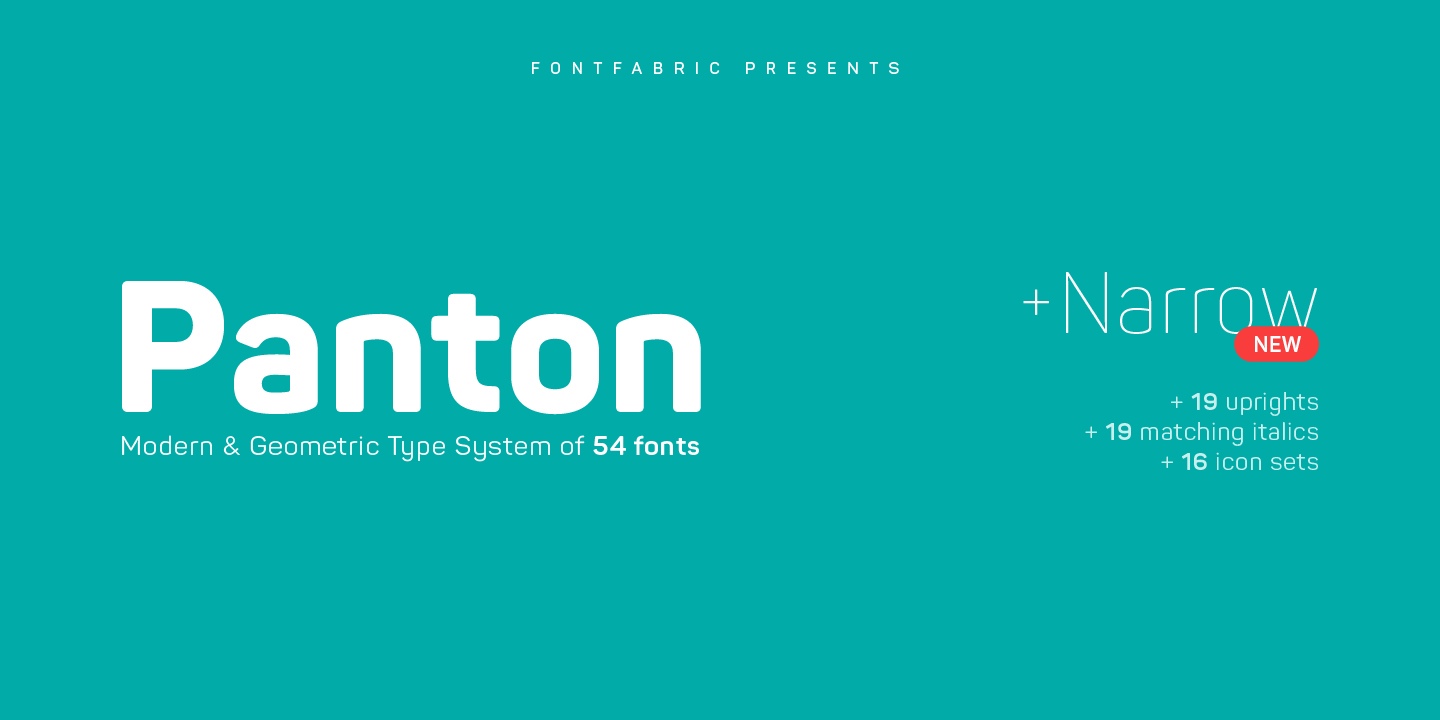
Panton Font
Panton Font is perfect for modern tech startups, contemporary architectural signage, innovative product packaging, sleek corporate identities, cutting-edge web design, minimalist brand campaigns, professional presentation materials, clean mobile interfaces, progressive marketing graphics, and sophisticated digital platforms.
What makes Panton Font so exciting is its exceptional ability to embody geometric precision and contemporary sophistication through letterforms that seem engineered for perfect clarity and modern professional excellence. This versatile typeface captures the essence of contemporary design and systematic thinking with characters that radiate both technical precision and accessible professionalism. The font's geometric design elements perfectly balance mathematical accuracy with human readability, creating an indispensable tool that communicates modern competence, systematic reliability, and contemporary authority, making it essential for organizations that value both precision and accessibility in their professional communications and modern brand presentations.
Panton Font comes in multiple font families including Regular, Bold, Light, Italic, Bold Italic, Ultra Light, Medium, and Black variations. Each family member maintains the core geometric characteristics while offering different weight levels and systematic approaches to suit various modern professional and contemporary design requirements.
The geometric precision in Panton Font makes it particularly effective for technology companies and design-forward organizations where conveying both technical competence and professional accessibility is crucial for connecting with modern audiences who appreciate systematic excellence and contemporary design sensibilities. Its balanced letterforms work exceptionally well across all contemporary applications, from digital interfaces to architectural signage, maintaining consistent professional impact while ensuring optimal readability and modern appeal.
Contemporary design professionals recognize how Panton Font transforms ordinary business communications into sophisticated statements of modern professionalism and systematic excellence. The typeface's comprehensive character set includes extensive international language support, mathematical symbols, and contemporary typographic features that accommodate complex modern branding requirements and global professional communication standards.
For creative professionals serving technology companies, architectural firms, and contemporary professional services, Panton Font serves as the ultimate foundation for creating memorable visual identities that capture the essential qualities of geometric precision, modern professionalism, and contemporary sophistication that define successful brands operating at the intersection of technical excellence and accessible professionalism in competitive modern markets where both accuracy and clarity determine success.